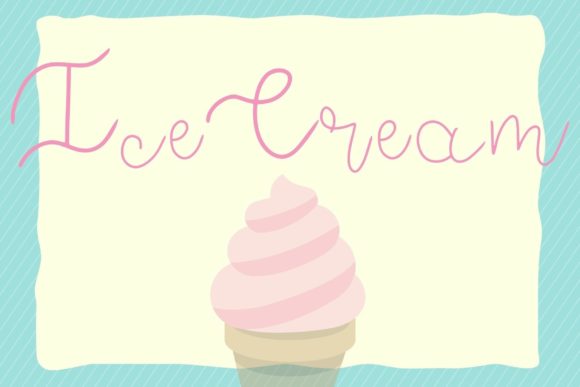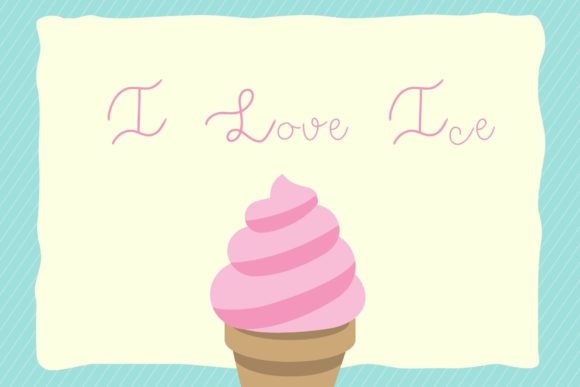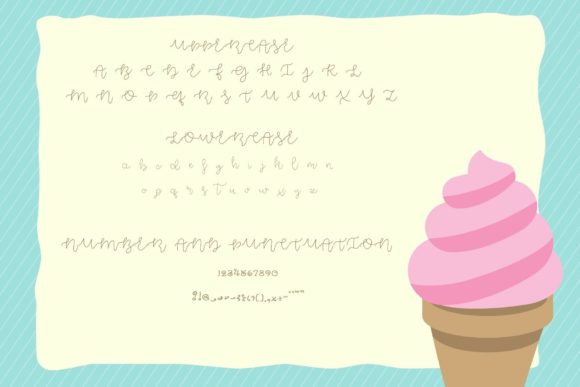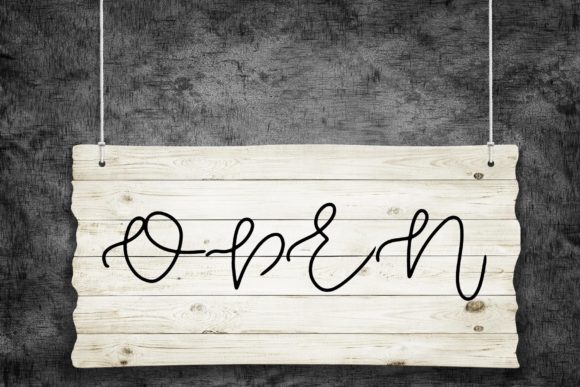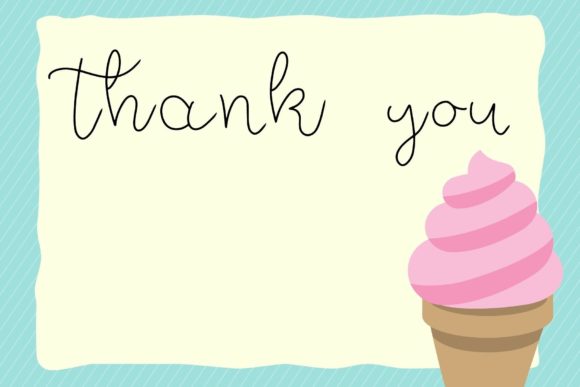
Ice Cream Font
About Ice Cream Font
Ice Cream is a whimsical and chic handwritten font designed to infuse a sense of playfulness and style into a variety of branding projects. Tailored for applications like logos, t-shirt printing, creative products, and more, Ice Cream offers a delightful and charming aesthetic that can enhance the visual identity of your brand.
The whimsical nature of Ice Cream makes it well-suited for projects that aim to convey a lighthearted and creative atmosphere. Whether you’re designing a logo with a playful touch or printing t-shirts featuring a whimsical theme, Ice Cream adds a sense of fun to your brand.
The chic elements of Ice Cream contribute to its versatility in different branding contexts. Whether you’re working on a creative product line or developing a unique logo, the font’s balance between whimsy and chicness allows it to complement various design concepts effectively.
Ice Cream is ideal for adding a personalized and authentic feel to your branding projects. Its handwritten style brings warmth and individuality, making it particularly appealing for brands seeking to establish a more personal connection with their audience.
The font’s adaptability enables seamless integration into different design elements, making it suitable for a variety of branding materials. Whether you’re creating promotional materials, merchandise, or any other branded content, Ice Cream can contribute to a cohesive and visually appealing brand image.
In summary, Ice Cream is more than just a font; it’s a whimsical and chic tool that enhances the visual identity of your brand. Its playful handwritten style, combined with a balance of whimsy and chicness, makes it suitable for logos, t-shirt printing, creative products, and various branding projects where a distinctive and charming touch is desired.